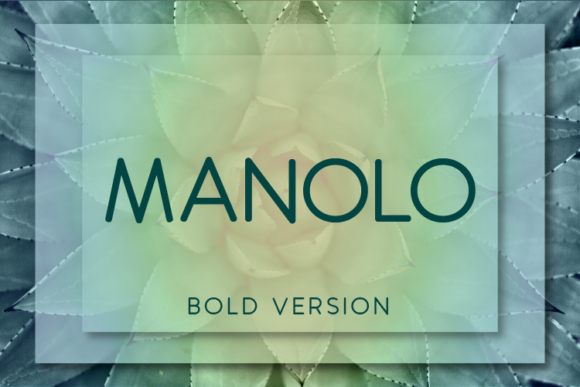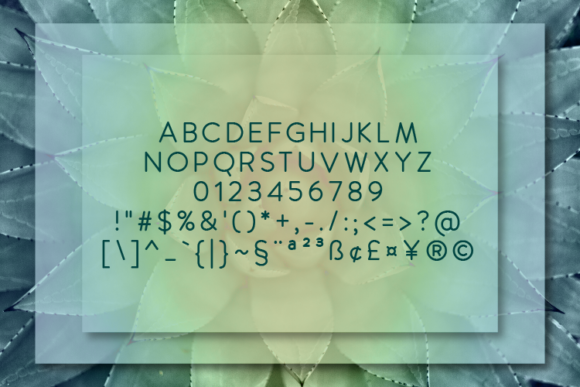
Manolo Bold Font
About Manolo Bold Font
Manolo Bold is a simple sans serif font, well suited for branding, websites, photos, titles, quotes and so much more!
Make your designs stand out with this classy and elegant font!